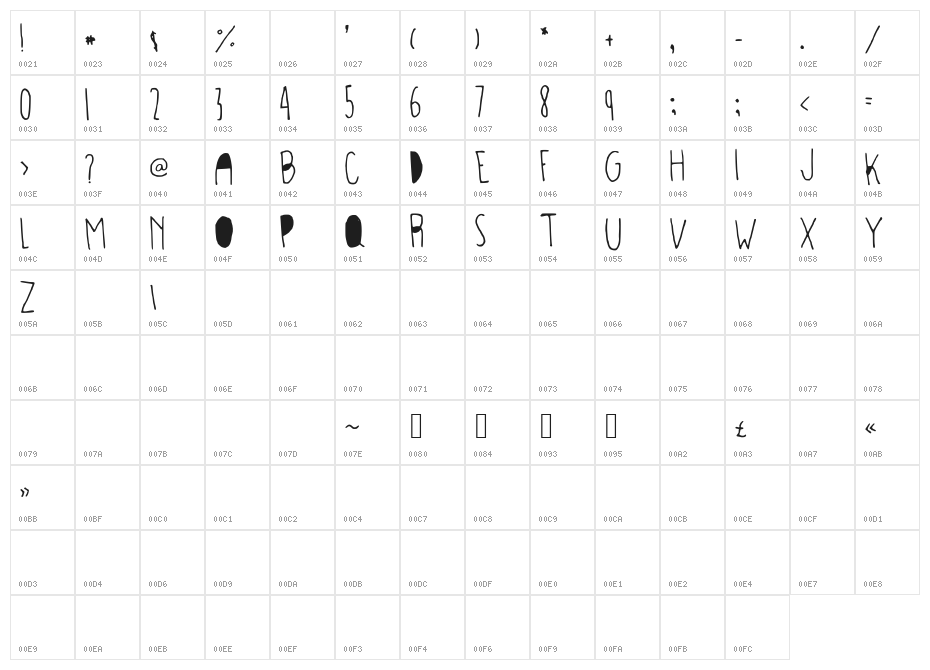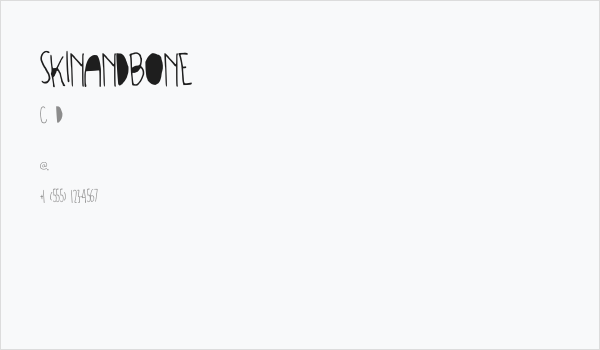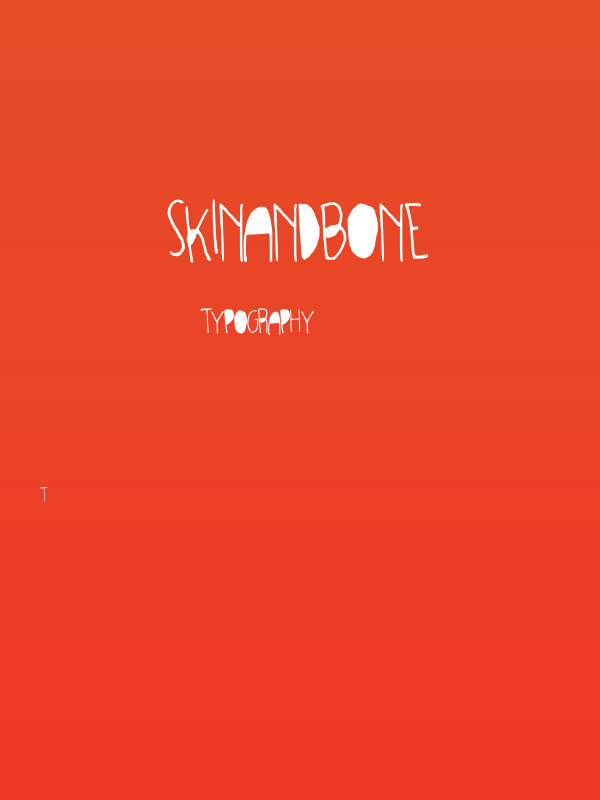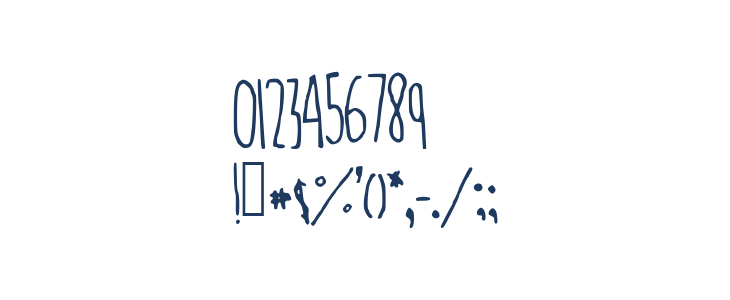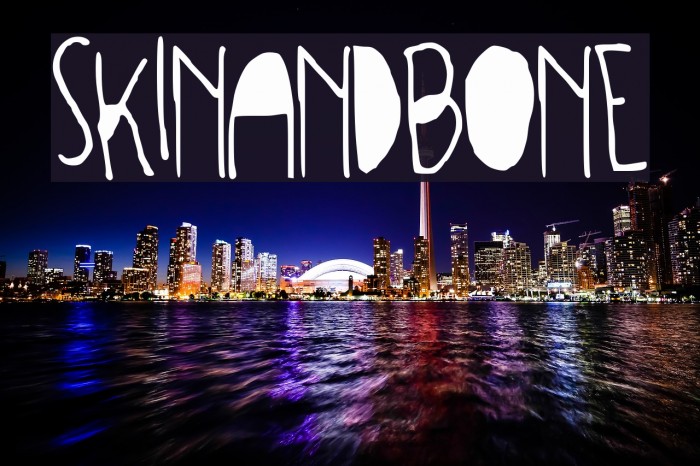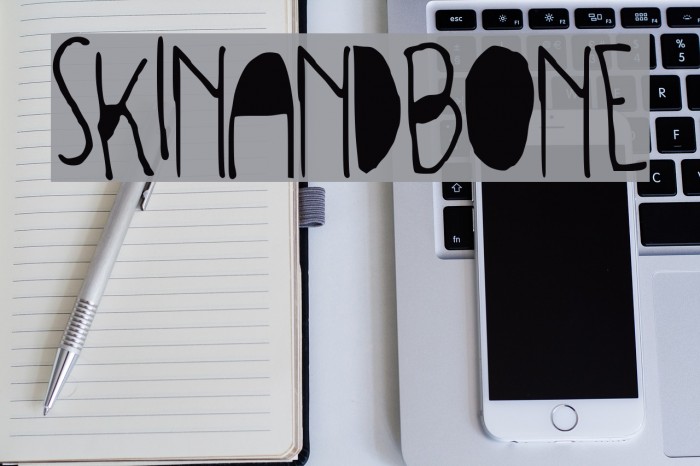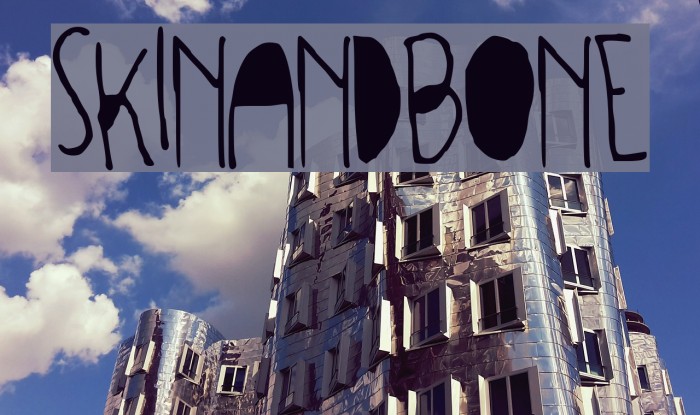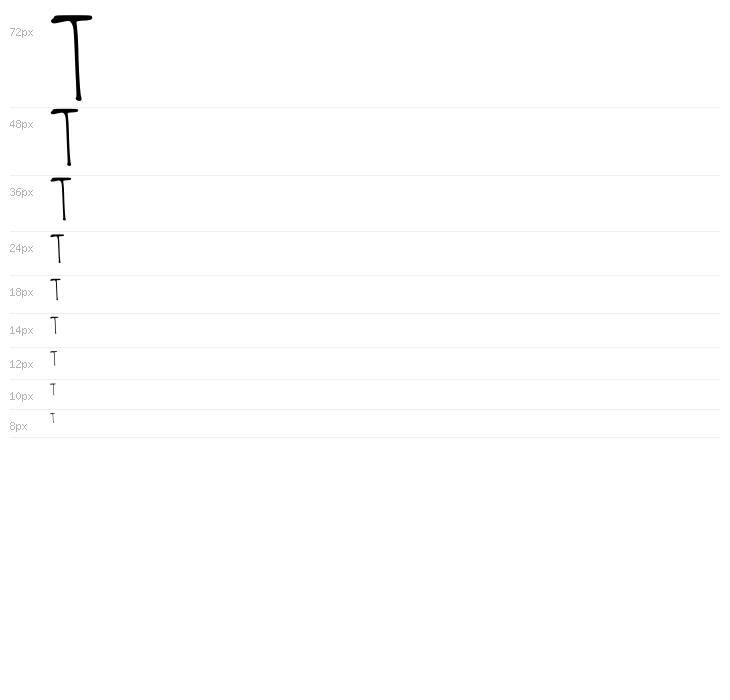
SKINANDBONE Font
SKINANDBONE Description
This font features a unique and artistic style with a hand-drawn appearance. The uppercase letters are tall and narrow, with some characters having exaggerated curves and strokes, giving them a playful and whimsical feel. The lowercase letters maintain a similar style, with a consistent height and a slightly irregular baseline, enhancing the hand-crafted look. The numerals are elongated and maintain the quirky characteristics of the alphabet. Special characters are creatively designed, adding to the overall artistic theme. This font is ideal for projects that require a distinctive and creative touch.